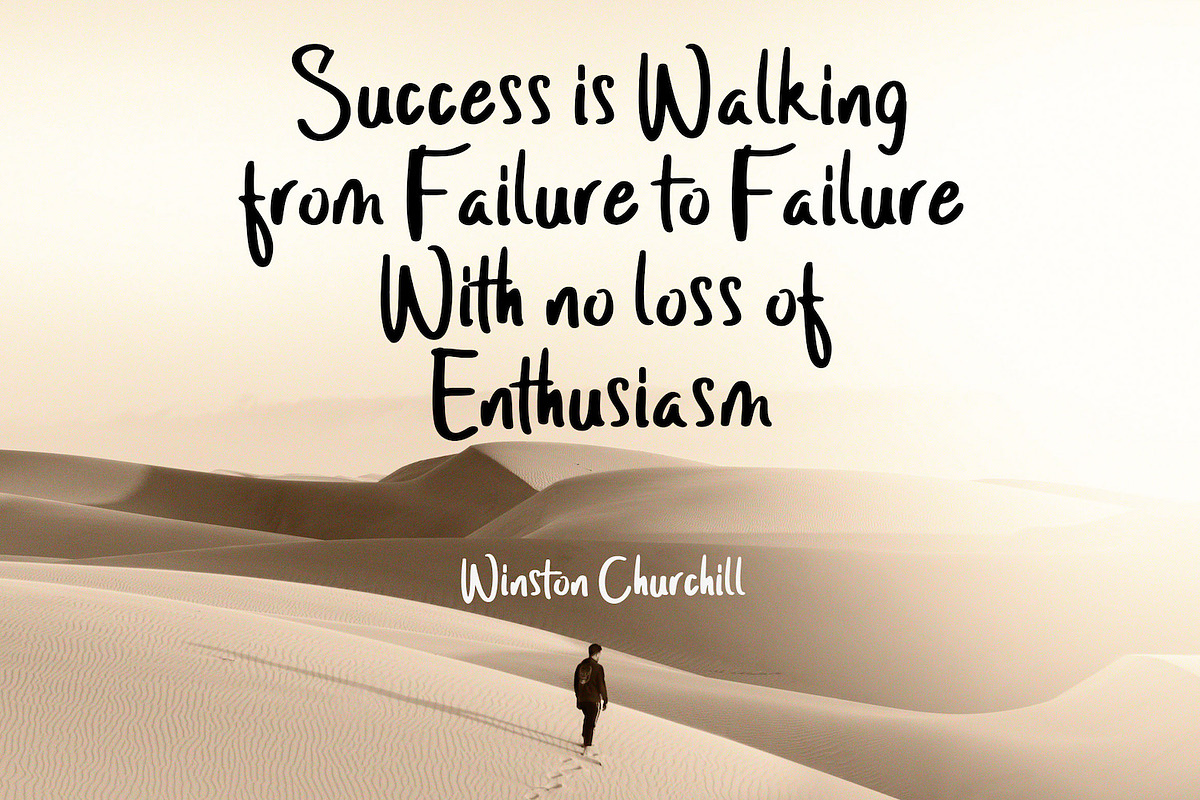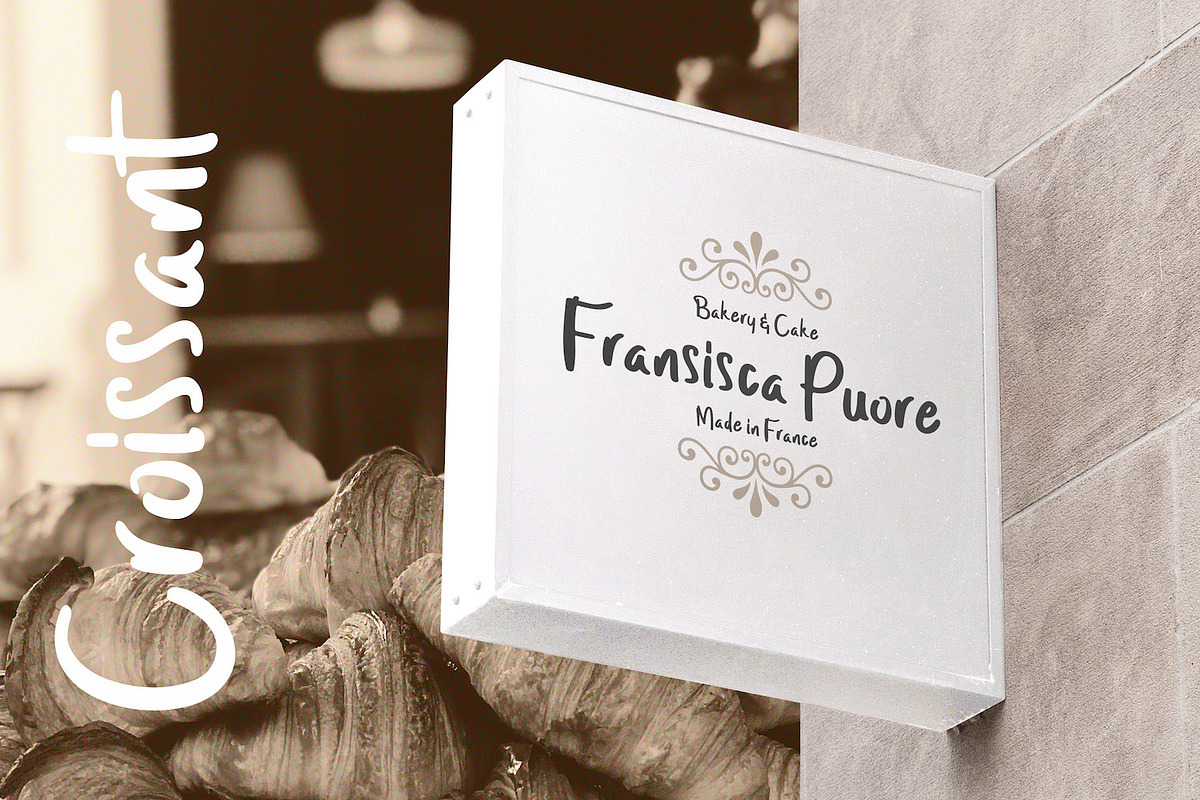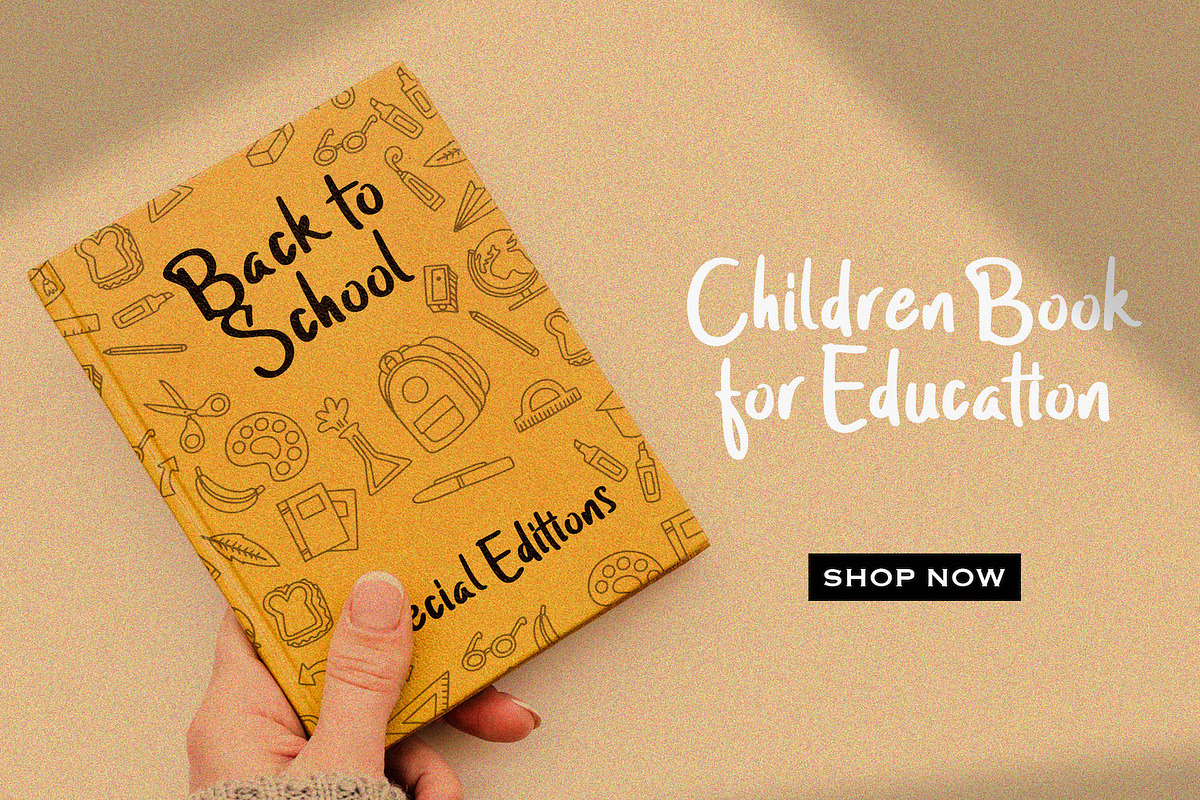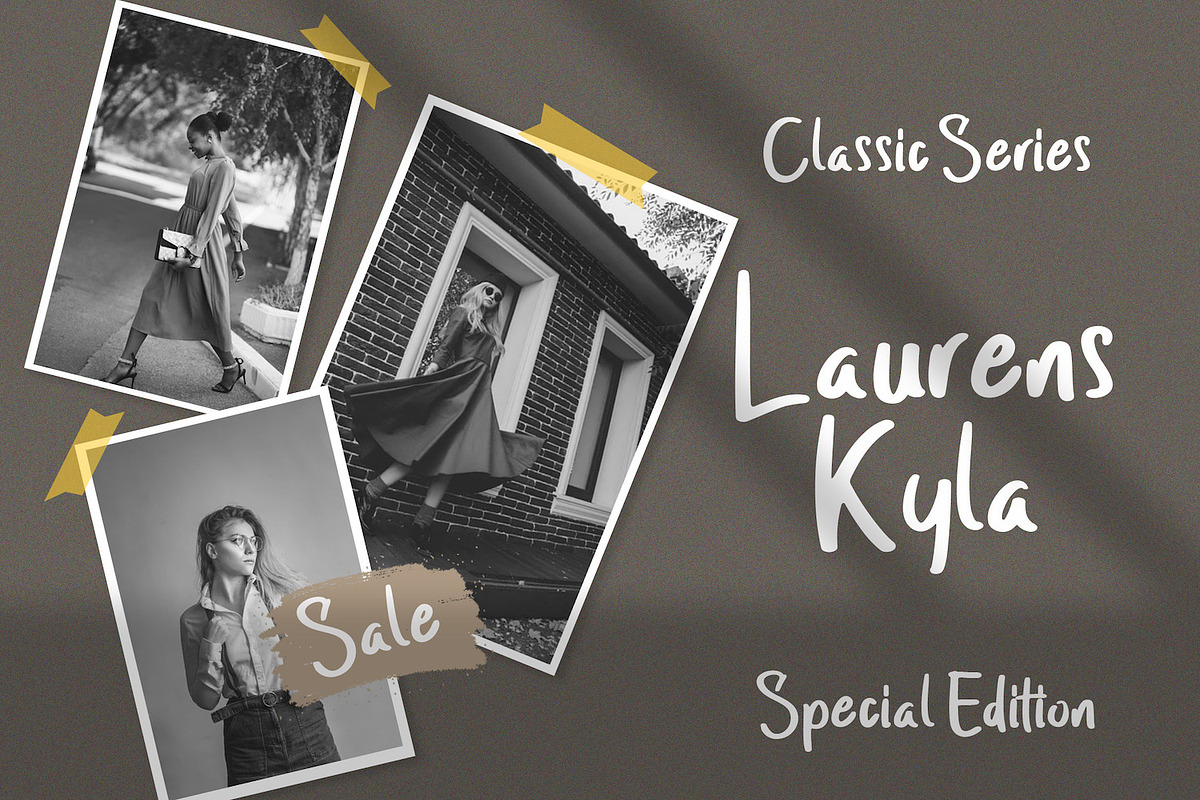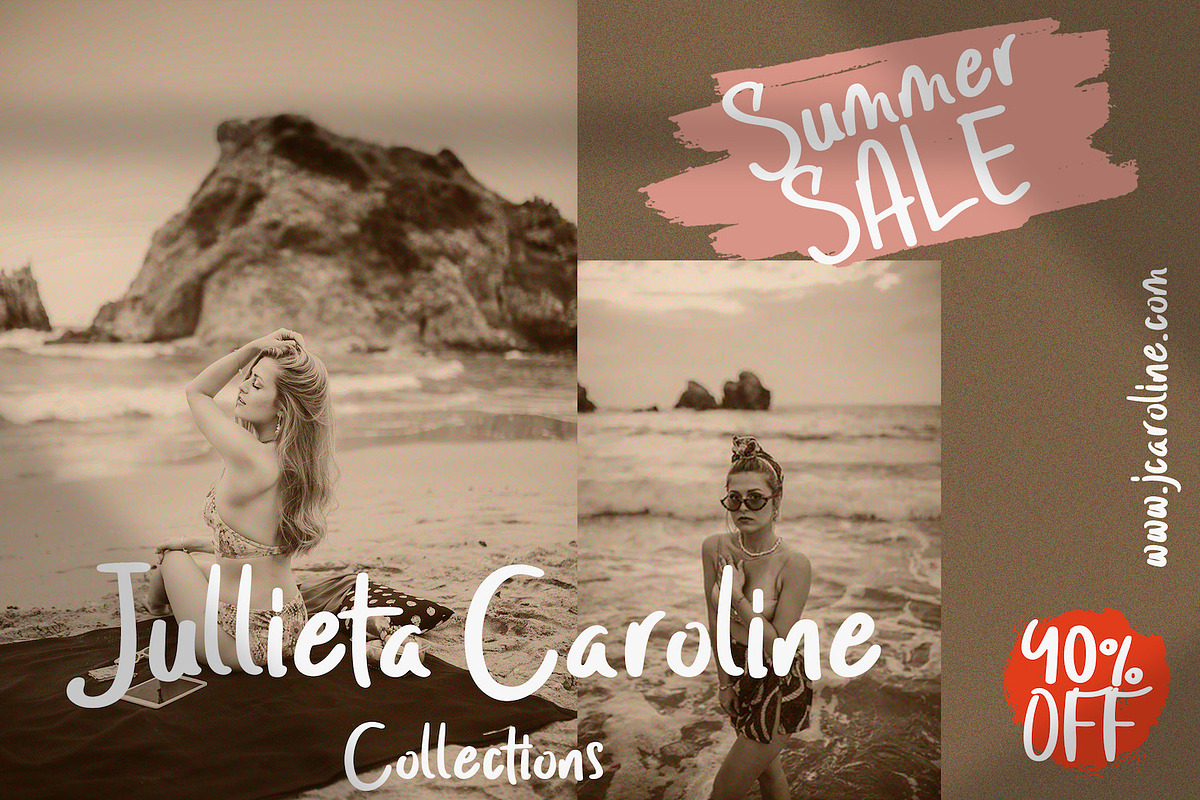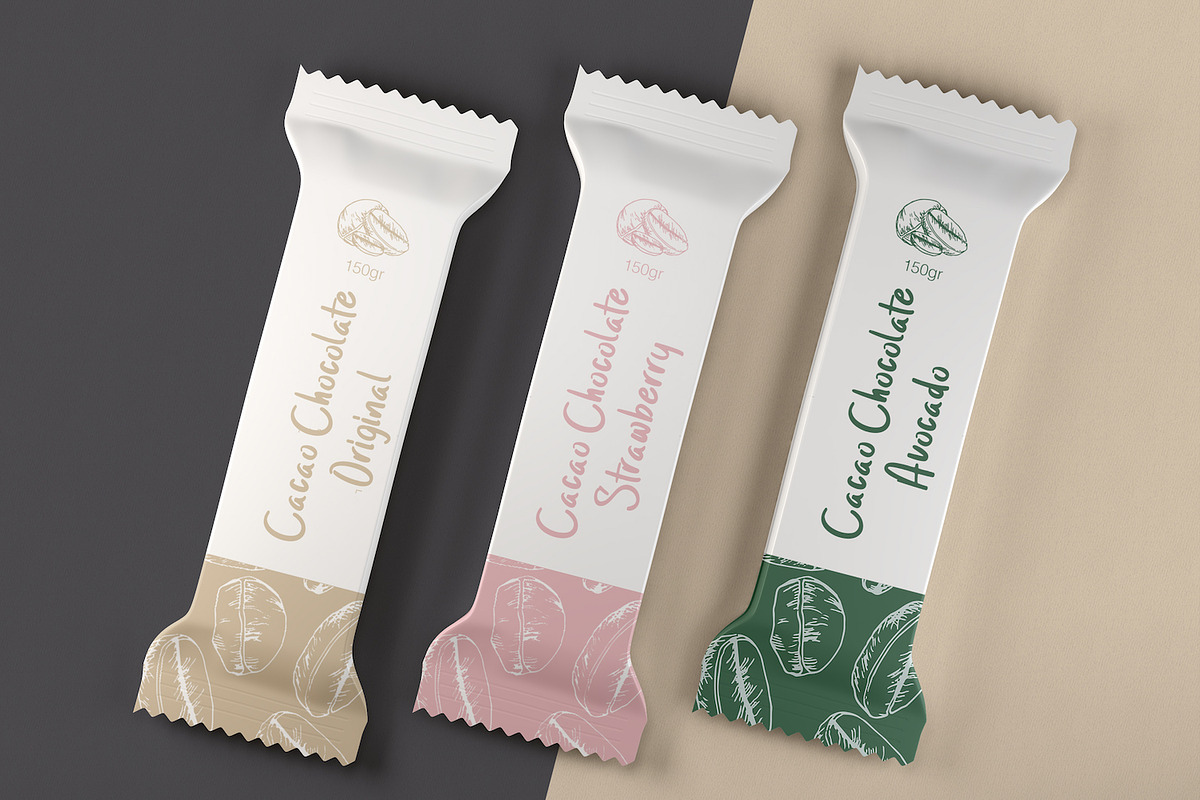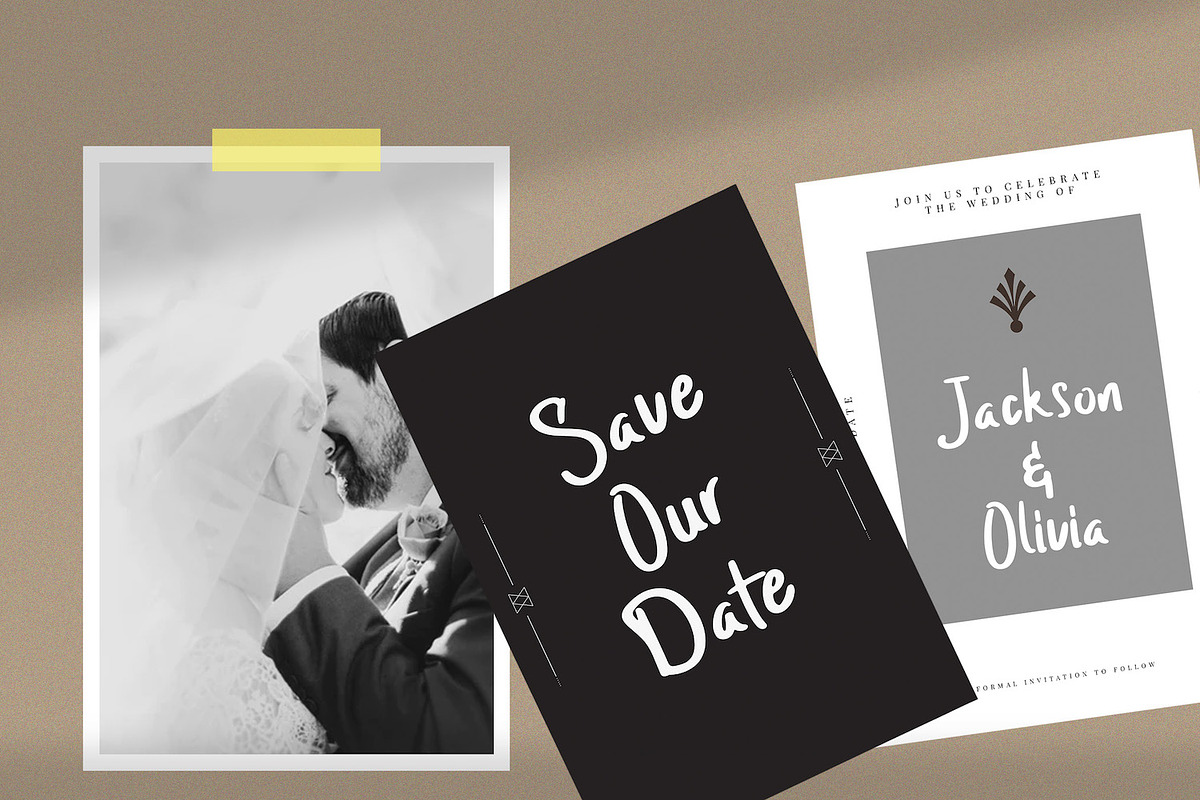
Twenty Senja - Playful Font
Introducing Twenty Senja - Playful Display Font
Twenty Senja is a playful font that specially crafted for everyone who love comic style and cartoon font style. The Twenty Senja also made with unique concept and decorative fun style.
- Twenty Senja Regular
Why Twenty Senja - Playful Font is worth a look
Twenty Senja - Playful Font by StringLabs fits naturally into Branding, posters, packaging, typography.